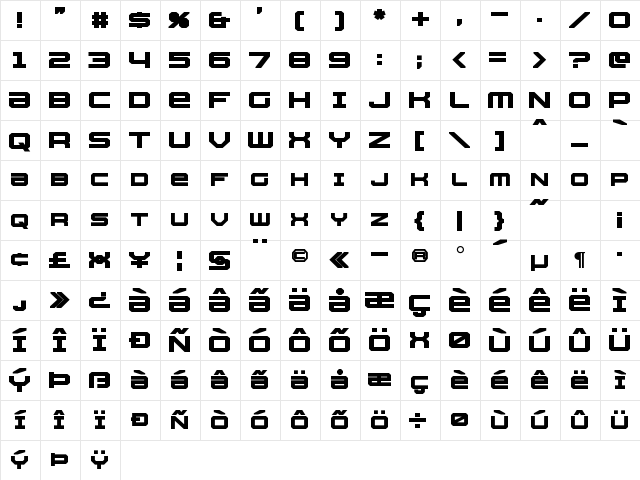
Whittle Bold
Foundry: Pixel Sagas
Designer: Neale Davidson
Design Context for Whittle
Whittle is a composed and adaptable typeface that performs quietly and consistently across a wide range of design contexts. Its bold stroke weight gives it real presence on the page.